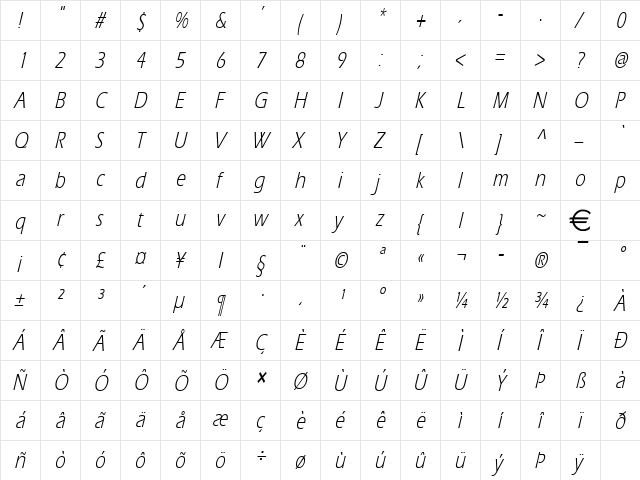
EricThin Italic
Design Context for EricThin Typeface
EricThin takes a measured approach to typography — its balanced proportions and neutral character make it a reliable workhorse for both digital and print work. Its italic angle brings a sense of urgency and motion to the letterforms. Its slender proportions lend an understated elegance to any composition.
Pro Tip: Use EricThin for emphasis, pull quotes, and subheadings where its slanted energy can add rhythm to the layout.